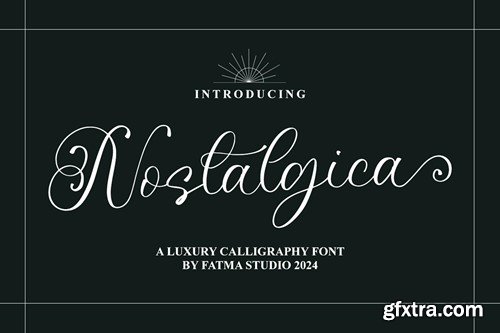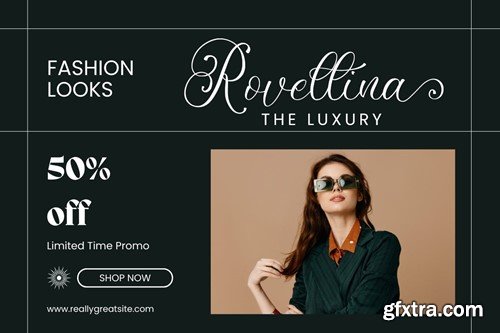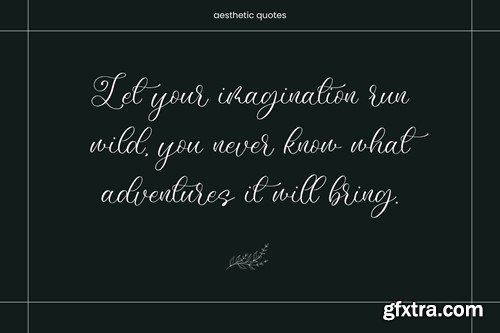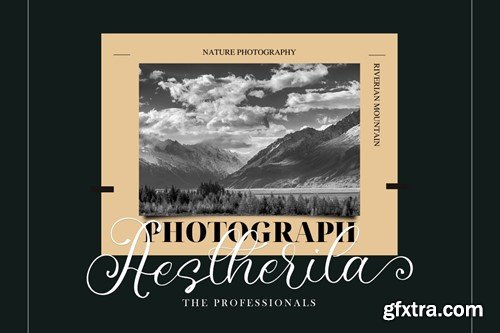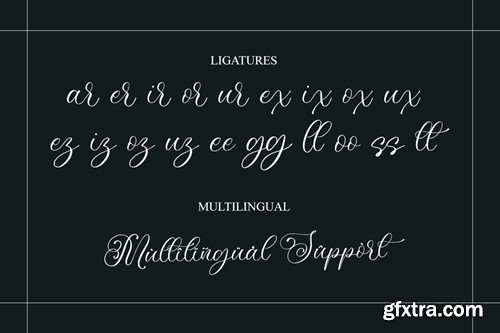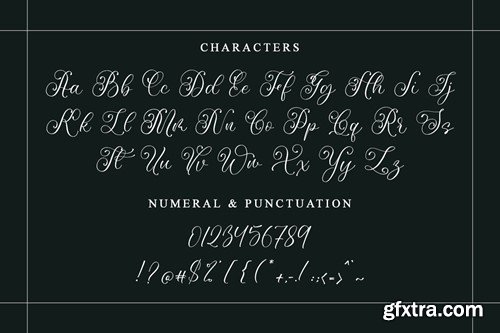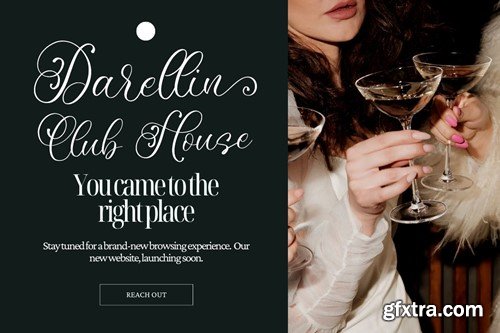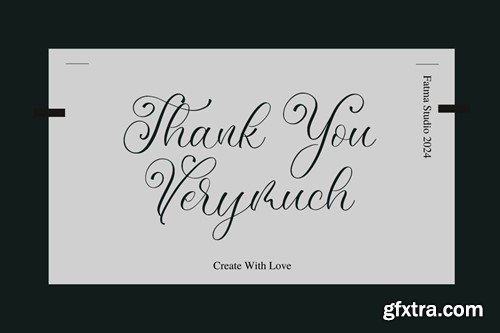
Nostalgica - A Modern Calligraphy Font
Nostalgica is a beautiful and refined script font. It has a classy, elegant and modern look that can be used for logos, branding, invitations, stationery, wedding designs, social media posts, and much more! What you get: Thank You